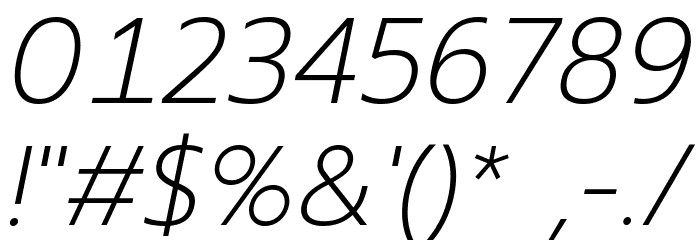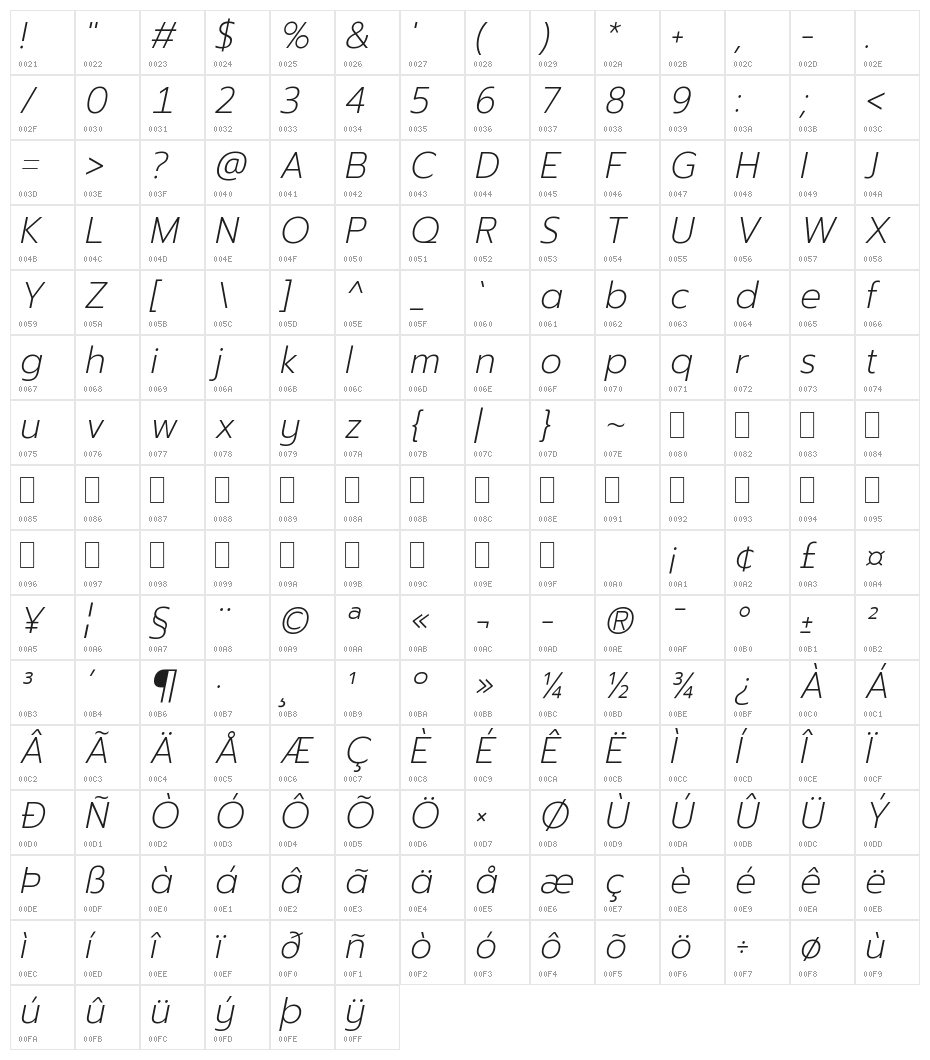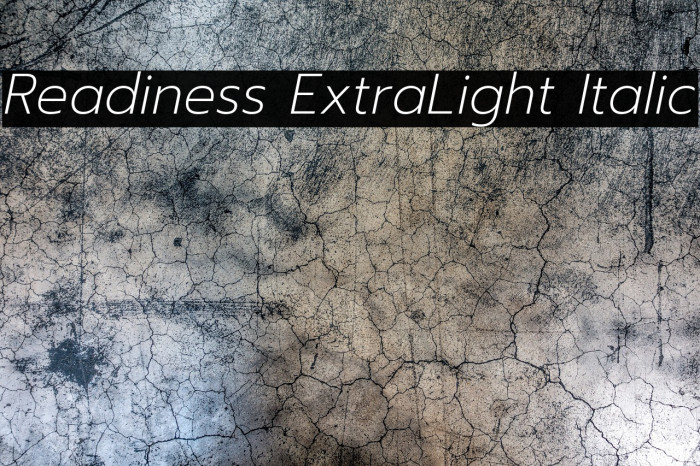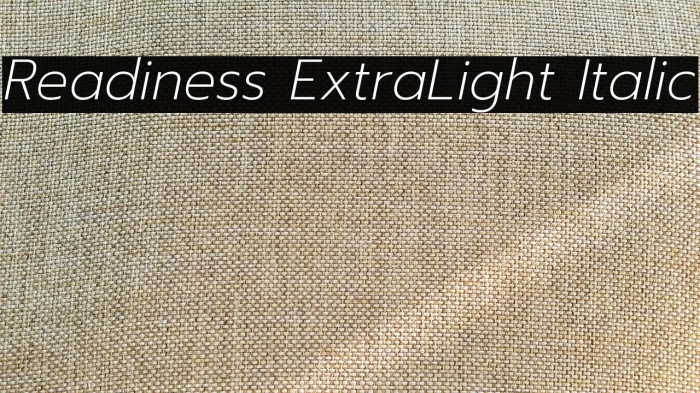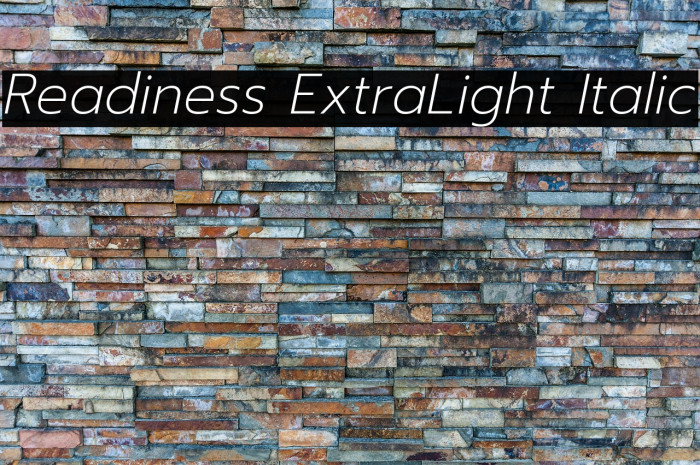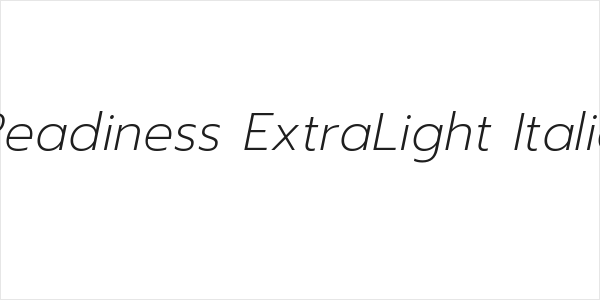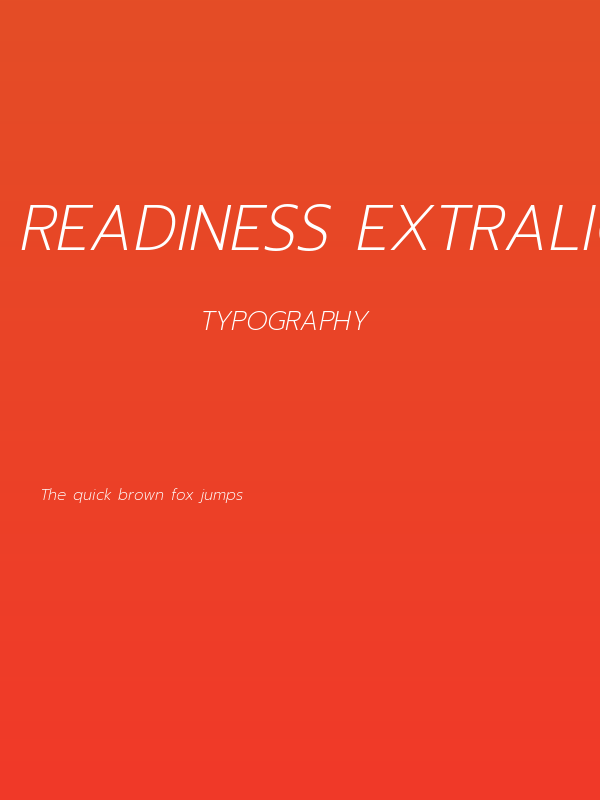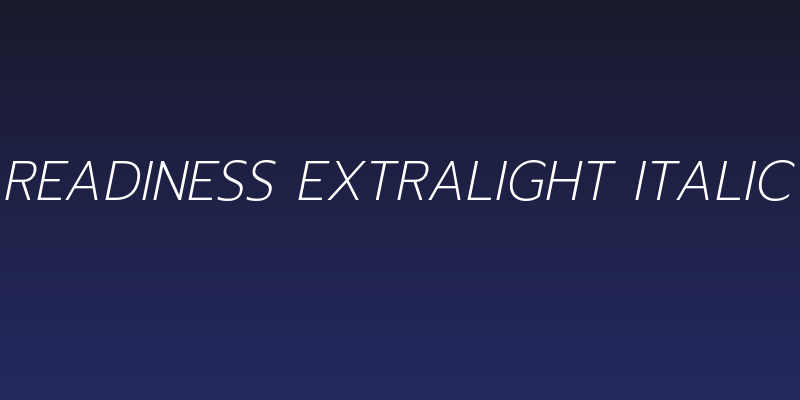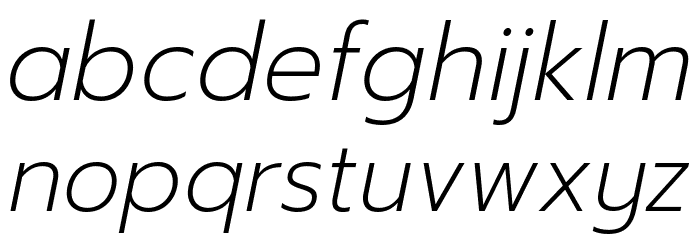
Readiness ExtraLight Italic Font
Readiness ExtraLight Italic Description
This font features a sleek and modern design with an extra light weight, giving it an airy and elegant appearance. The italic style adds a sense of motion and fluidity, making it suitable for dynamic and contemporary designs. The characters are well-proportioned with a slight slant, enhancing readability while maintaining a stylish look. The clean lines and minimalistic approach make it versatile for various applications. The numerals and special characters are consistent with the overall aesthetic, ensuring a cohesive look across different uses.
| Proposed Projects | Ideal for fashion magazines, modern branding, elegant invitations, and minimalist web design. |